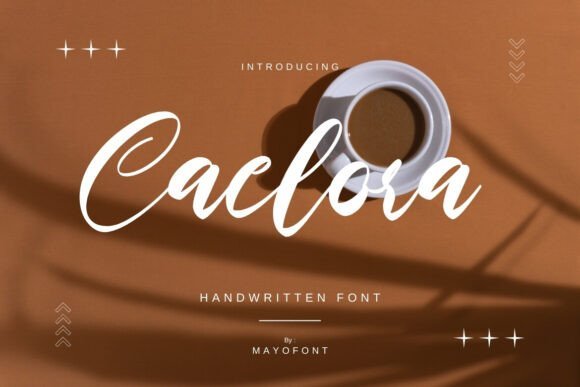
The Perfect Script: Unlocking the Elegance of Caelora Font
As creatives, we’ve all been there – staring at a blank page, trying to find the perfect font to bring our vision to life. The cursor blinks, taunting us with every passing second. But what if you stumbled upon a font that effortlessly elevates your design, making every word feel like a work of art? Enter Caelora Handwritten, a beautifully crafted script font that embodies elegance and natural flow.
With its smooth, flowing strokes and delicate curves, Caelora Font adds a personal and sophisticated touch to any design. Whether it’s branding, invitations, logos, or creative projects, this font exudes warmth, authenticity, and artistic charm. For designers, Caelora Font is a valuable asset, providing a unique and stylish element to elevate their work and leave a lasting impression.
- Unique Characteristics: Elegant, modern script font with a flowing, cursive design
- Font Style: Script, Calligraphy
Caelora Font Review
I had the chance to work with Caelora Font, and I must say it’s a mixed bag. There are some aspects where it shines, while others need improvement.
- Caelora Font has a beautiful, elegant design that makes it perfect for luxury brands and high-end products. The subtle flair and cursive feel will add a touch of sophistication to any project.
- The font is highly legible, making it suitable for body text and headings. It’s also quite versatile, working well in both print and digital formats.
- One major drawback is that Caelora Font is not as extensive as some other fonts in terms of character set and language support. This may limit its use in multilingual projects.
- The font’s bold weight can sometimes feel a bit too condensed, which may make it harder to read in smaller sizes.
Caelora Font is a solid choice for projects that require a touch of elegance and sophistication. While it may not be the best option for every project, it’s definitely worth considering when you need a high-end font. Just be aware of its limitations, and you’ll be good to go.
Use Caelora Font for headings and titles to add a touch of elegance to your design. Experiment with different font sizes and styles to create visual interest. Pair Caelora Font with other fonts to create a unique and harmonious typography.
Caelora Font is perfect for:
- Editorial and magazine design